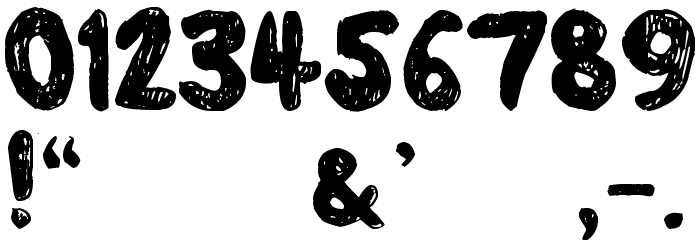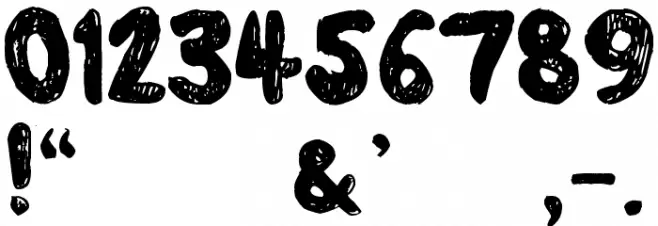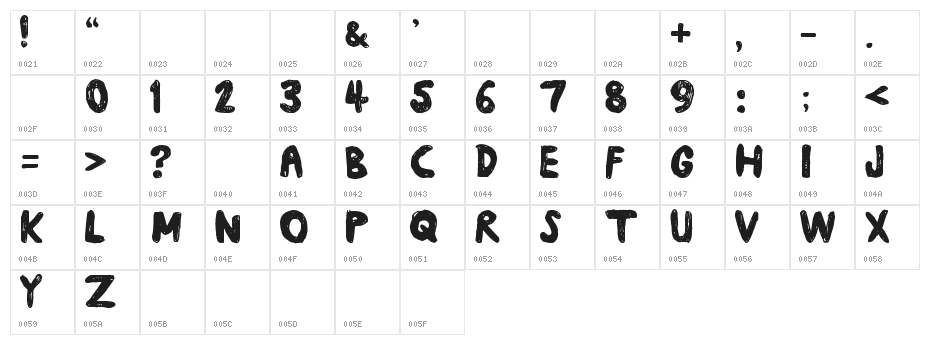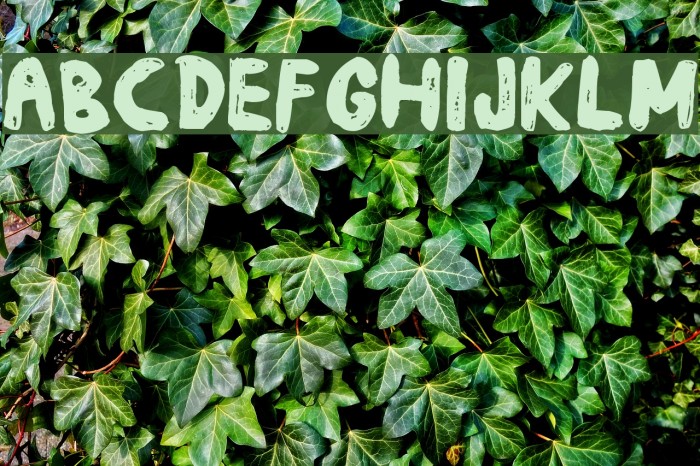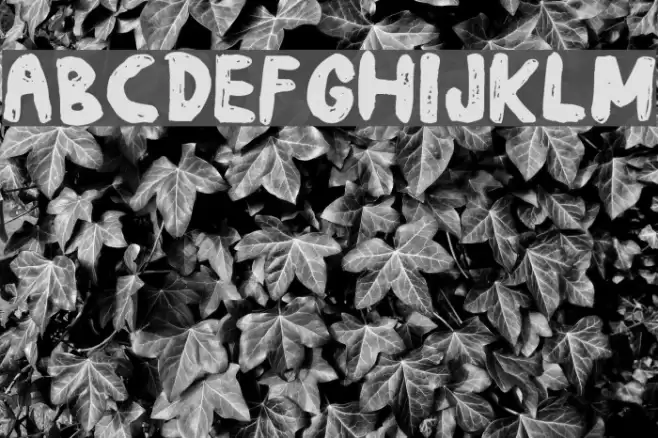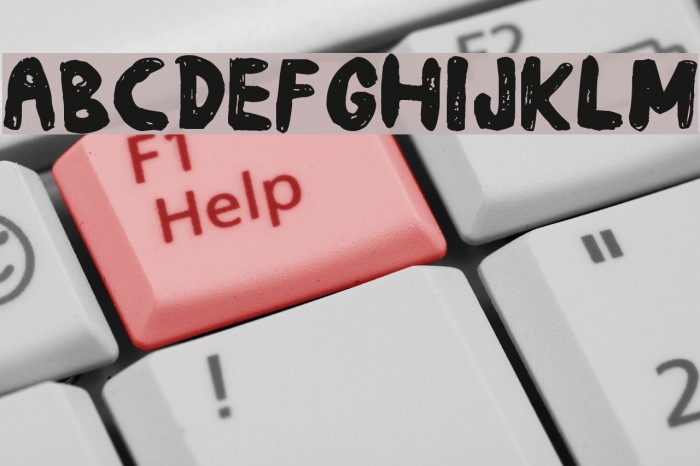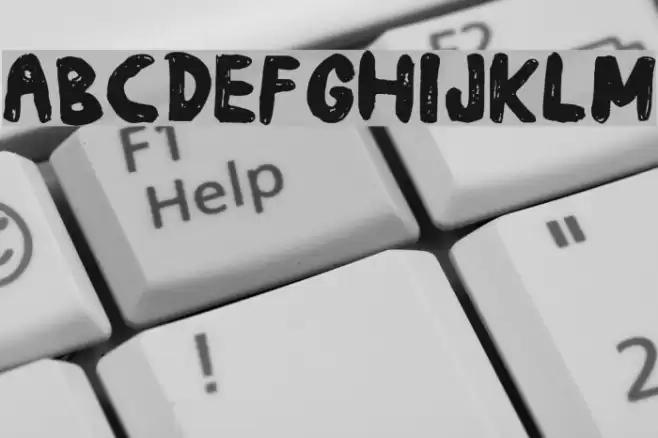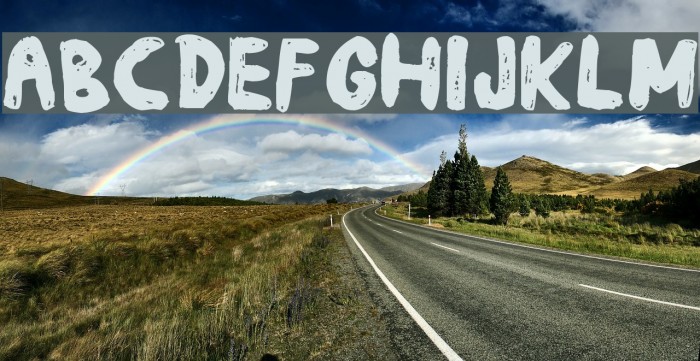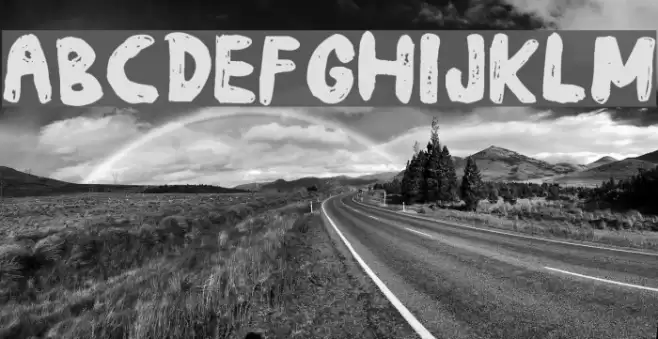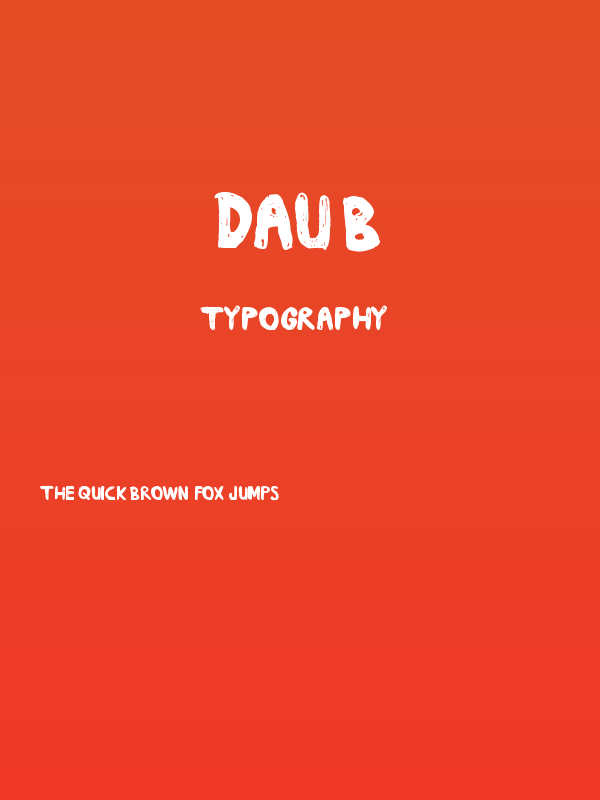
daub Font
daub Description
This font features a bold and playful design with a hand-drawn appearance. The letters are thick and rounded, with a textured, brush-like finish that gives them a dynamic and artistic feel. The irregularities in the strokes add a sense of movement and energy, making it ideal for creative and informal projects. The numbers and special characters maintain the same lively style, ensuring consistency throughout. Its unique character makes it stand out, perfect for projects that require a touch of whimsy and creativity.
| Proposed Projects | Ideal for children's books, posters, creative branding, and playful invitations. |